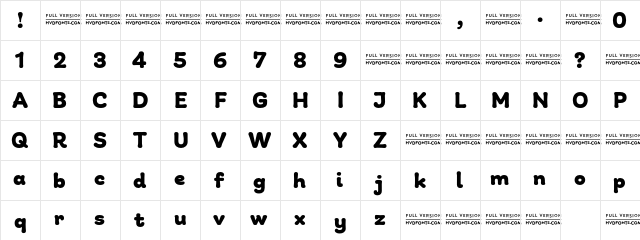
Giulia Plain DEMO Bold
| Foundry | Hannes von Doehren |
| Designer | Hannes von Doehren |
Design Context for Giulia Plain DEMO Typeface
Giulia Plain DEMO is a composed and adaptable typeface that performs quietly and consistently across a wide range of design contexts. Its bold stroke weight gives it real presence on the page.